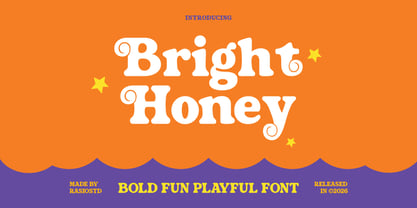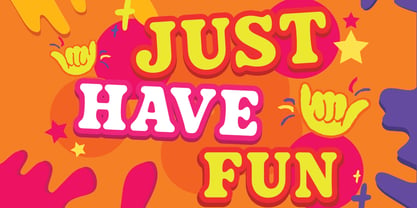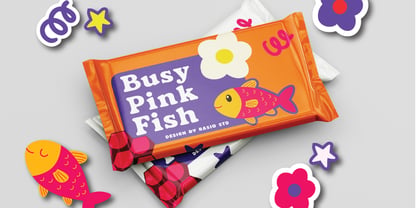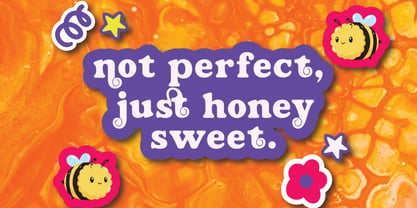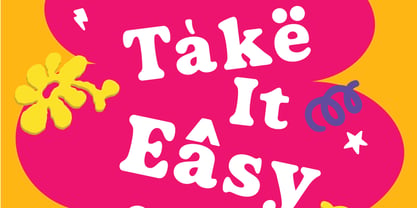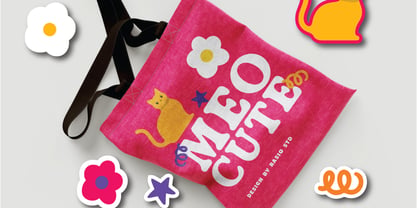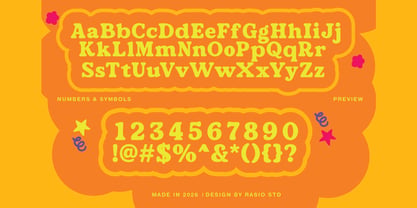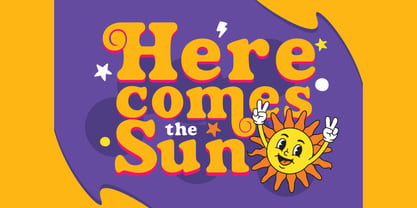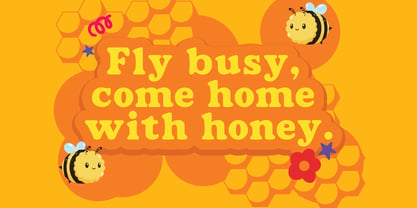
Bright Honey
por Rasio Studio
La familia tipográfica Bright Honey fue diseñada por Fajar Indra y publicada por Rasio Studio. Bright Honey contiene 1 estilos. Más información sobre esta familia
Bright Honey is a cheerful, bold display font that radiates fun and personality. Featuring quirky swirls on selected characters and bubbly rounded forms, it’s the perfect choice for playful branding, kids-themed projects, and retro-inspired visuals. This typeface includes full uppercase and lowercase sets, numbers, punctuation, and multilingual support, all designed with a vibrant tone. Bright Honey is perfect for designers working on projects that need a fun, retro, or youthful tone. It’s ideal for children’s products, toy packaging, playful branding, poster designs, birthday invitations, and social media content that embraces joy and positivity.
Diseñadores: Fajar Indra
Fundición: Rasio Studio